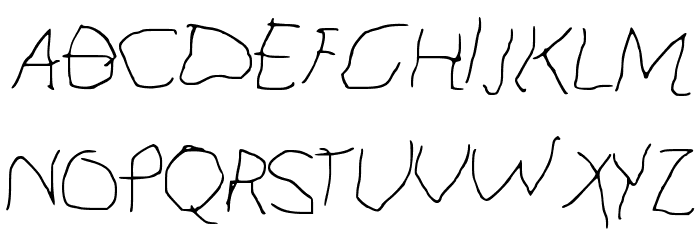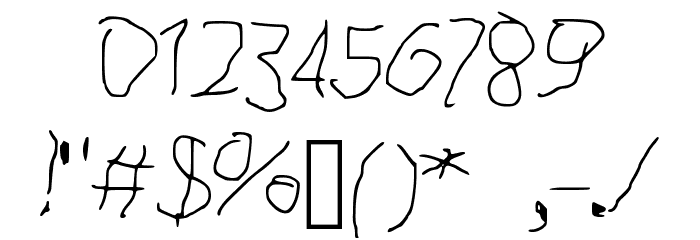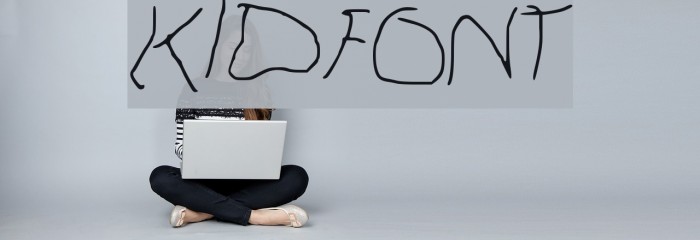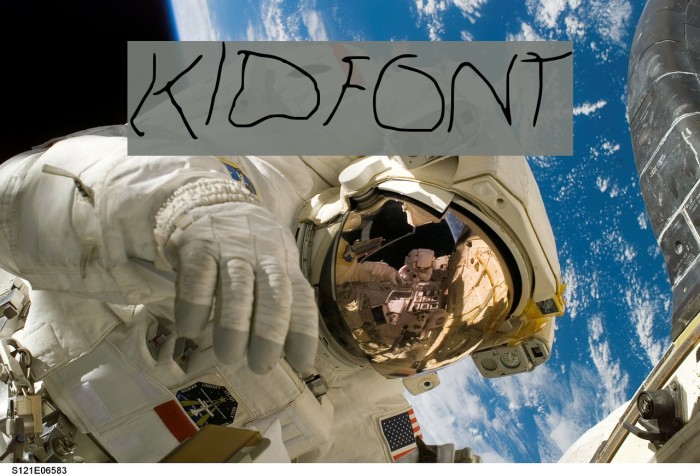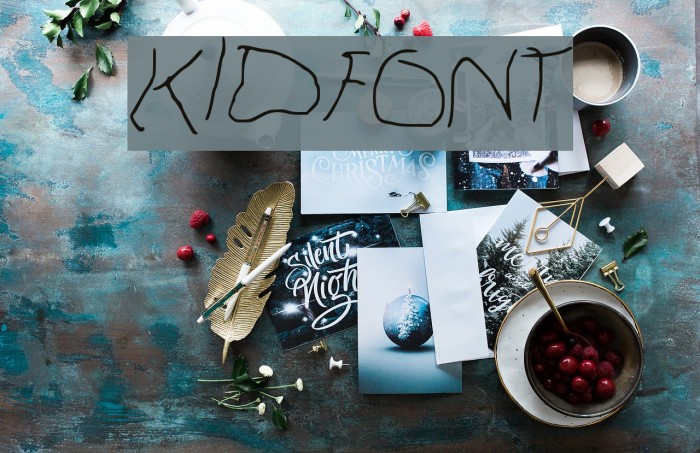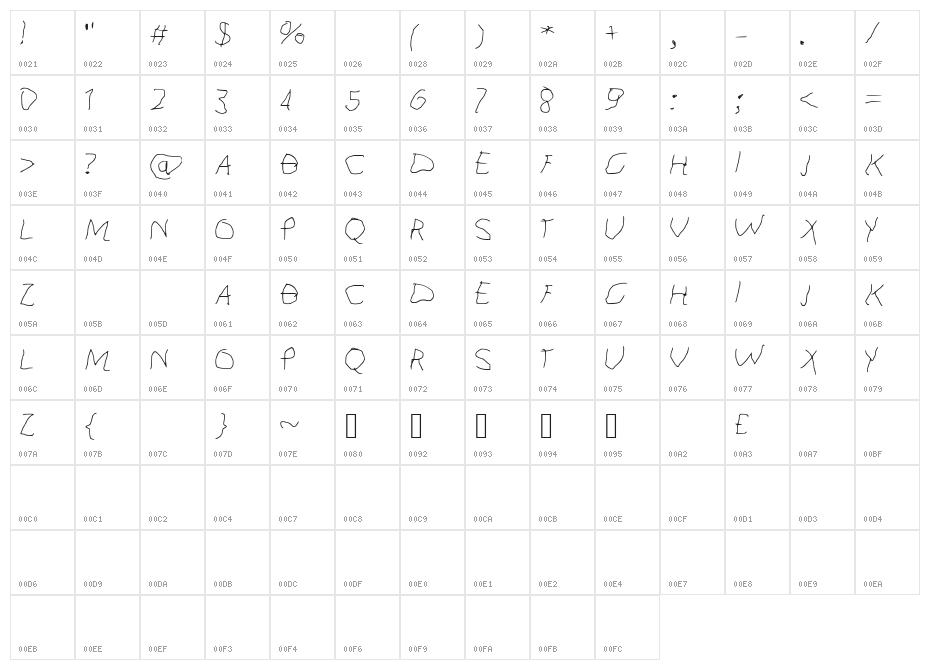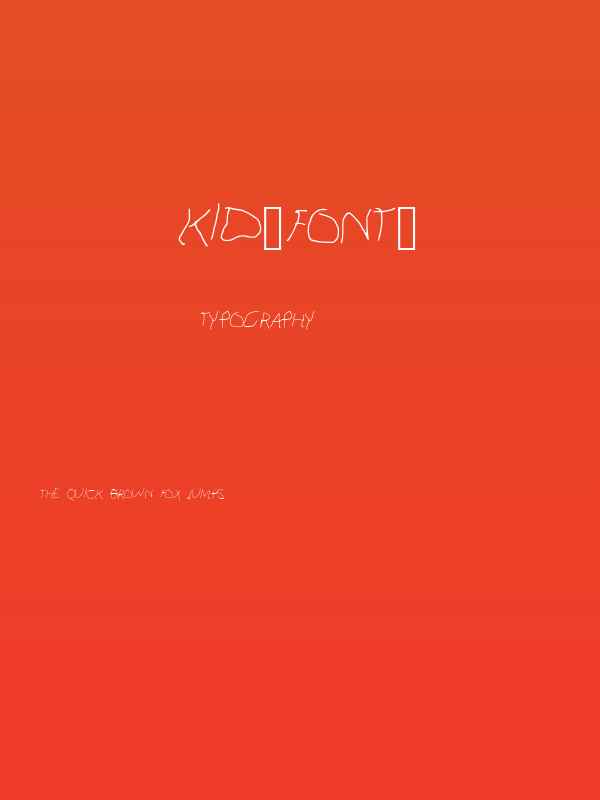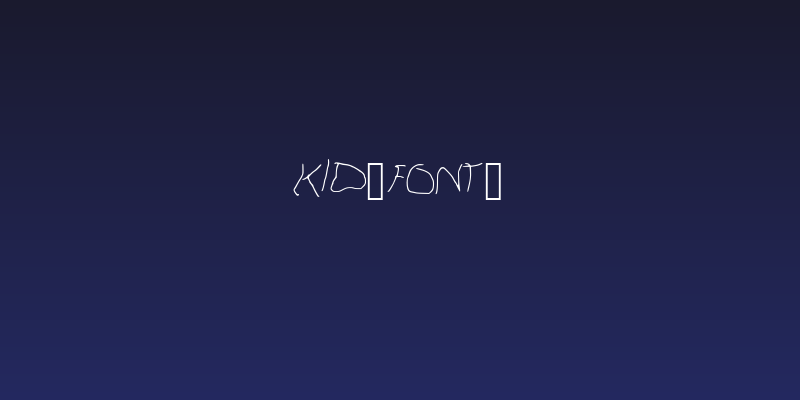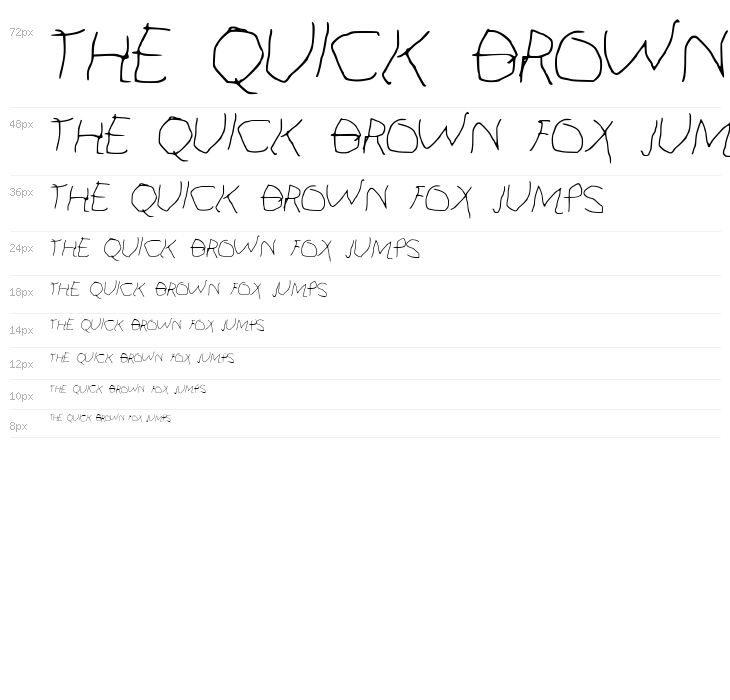
Kid_Font_ Font
This playful and whimsical font mimics the appearance of a child's handwriting, characterized by its irregular and uneven strokes. The letters are formed with a loose, freehand style that gives it a casual and informal feel. Each character appears slightly tilted or slanted, adding to the playful nature of the design. The strokes vary in thickness, creating a dynamic and lively texture. This font is perfect for projects that require a fun and youthful touch, such as children's books, educational materials, or playful branding. Its unique style captures the essence of creativity and spontaneity, making it an excellent choice for designs that aim to convey a sense of joy and imagination.
A playful, child-like handwritten font with irregular strokes and a whimsical style.
- Proposed Projects: Ideal for children's books, educational materials, playful branding, and creative projects.
- Character Spacing: Wide
- Overall Style: Playful